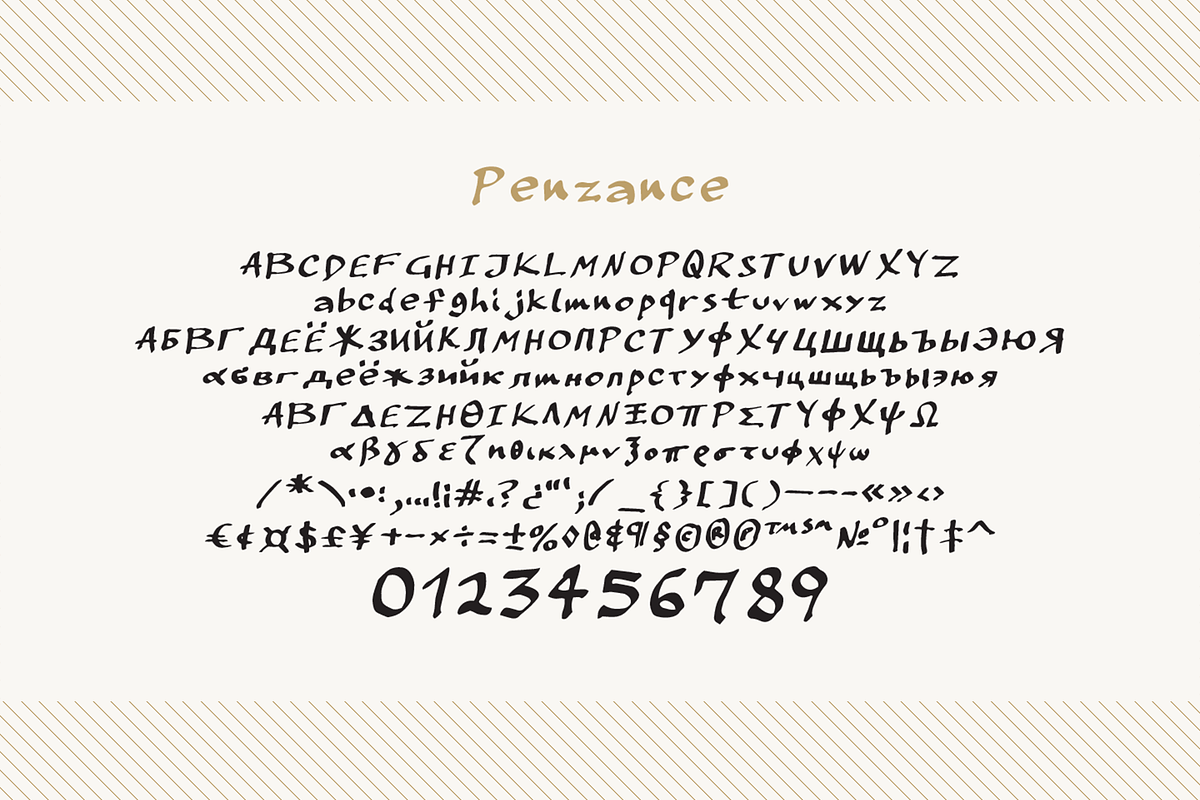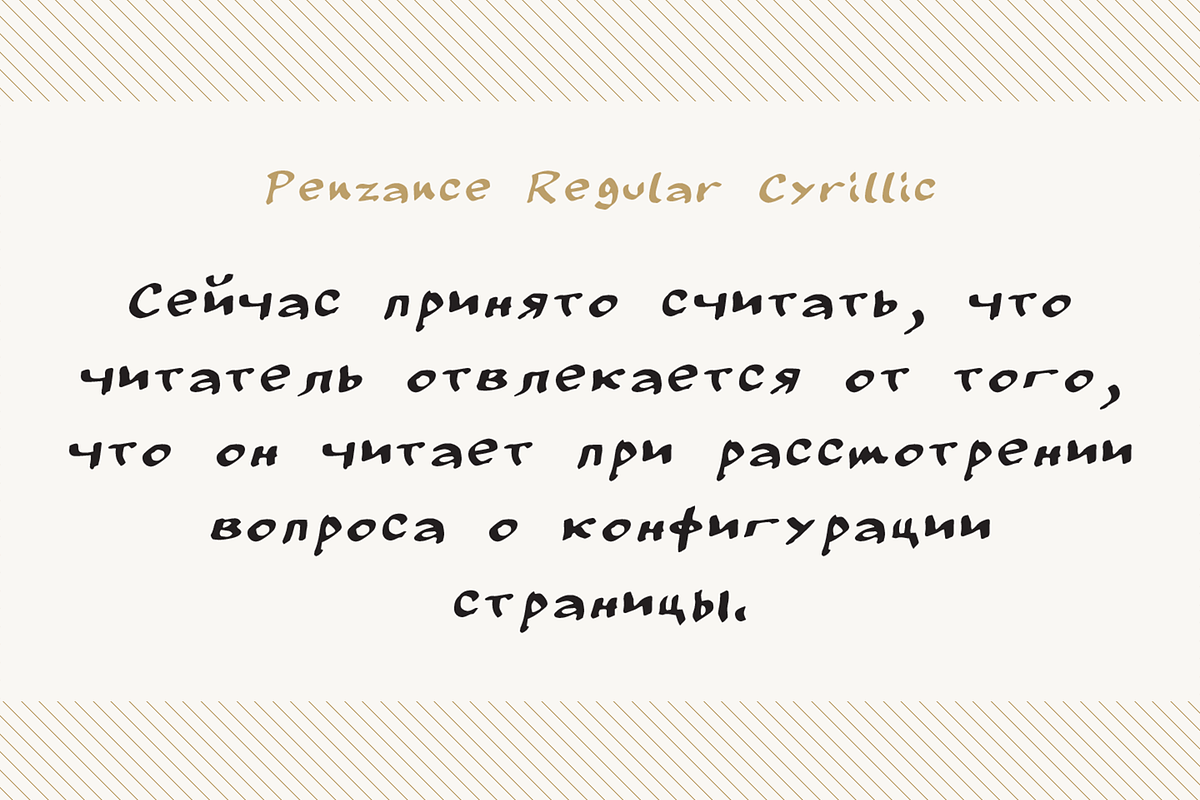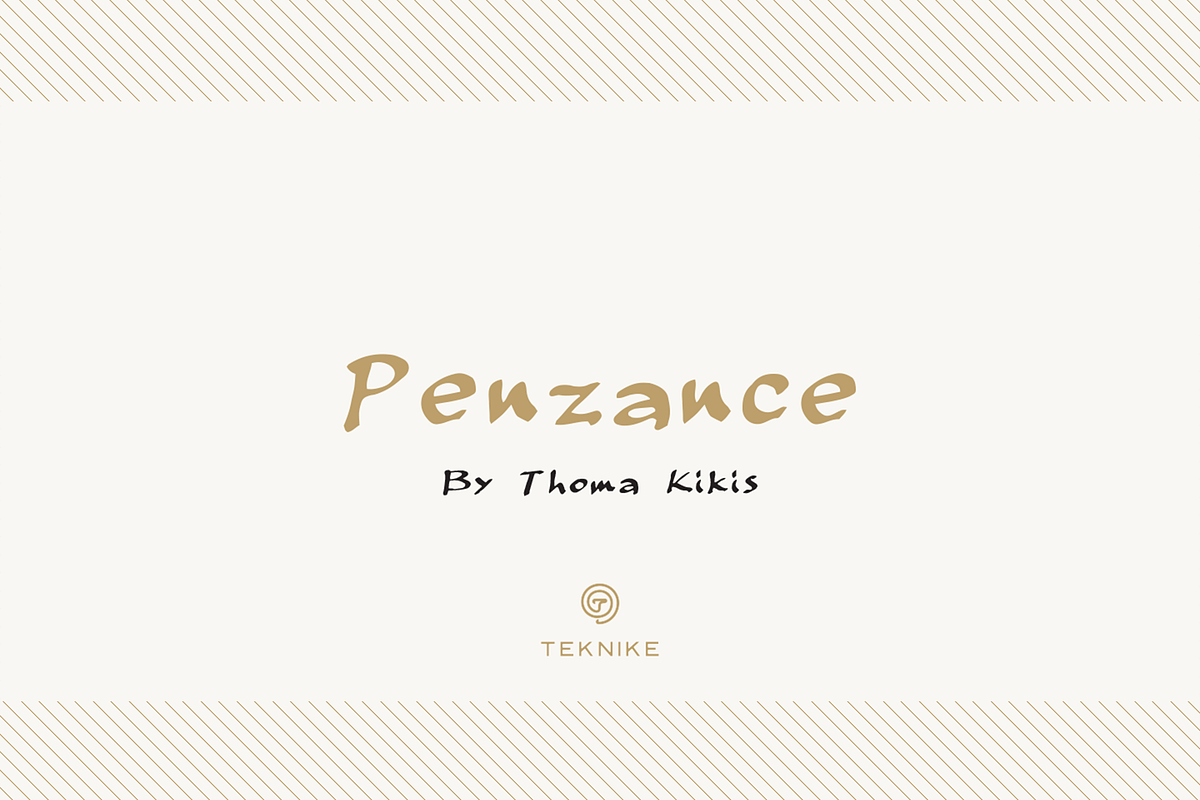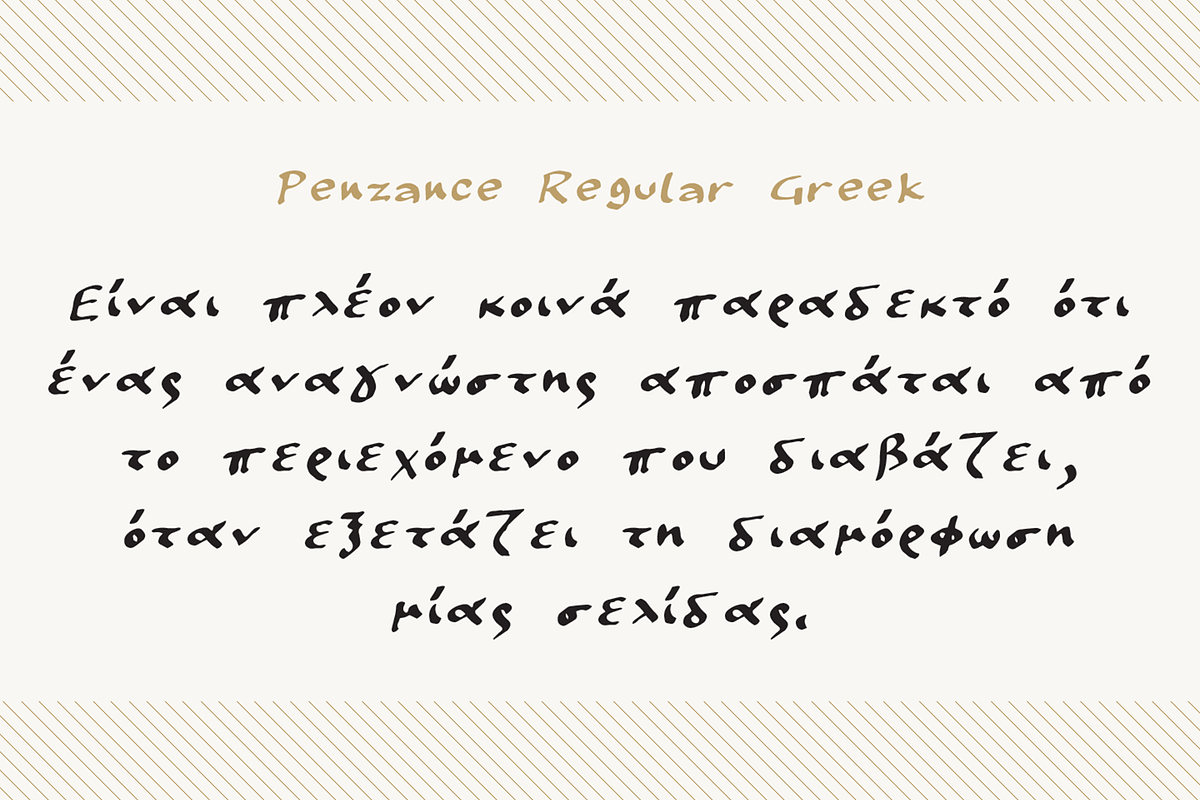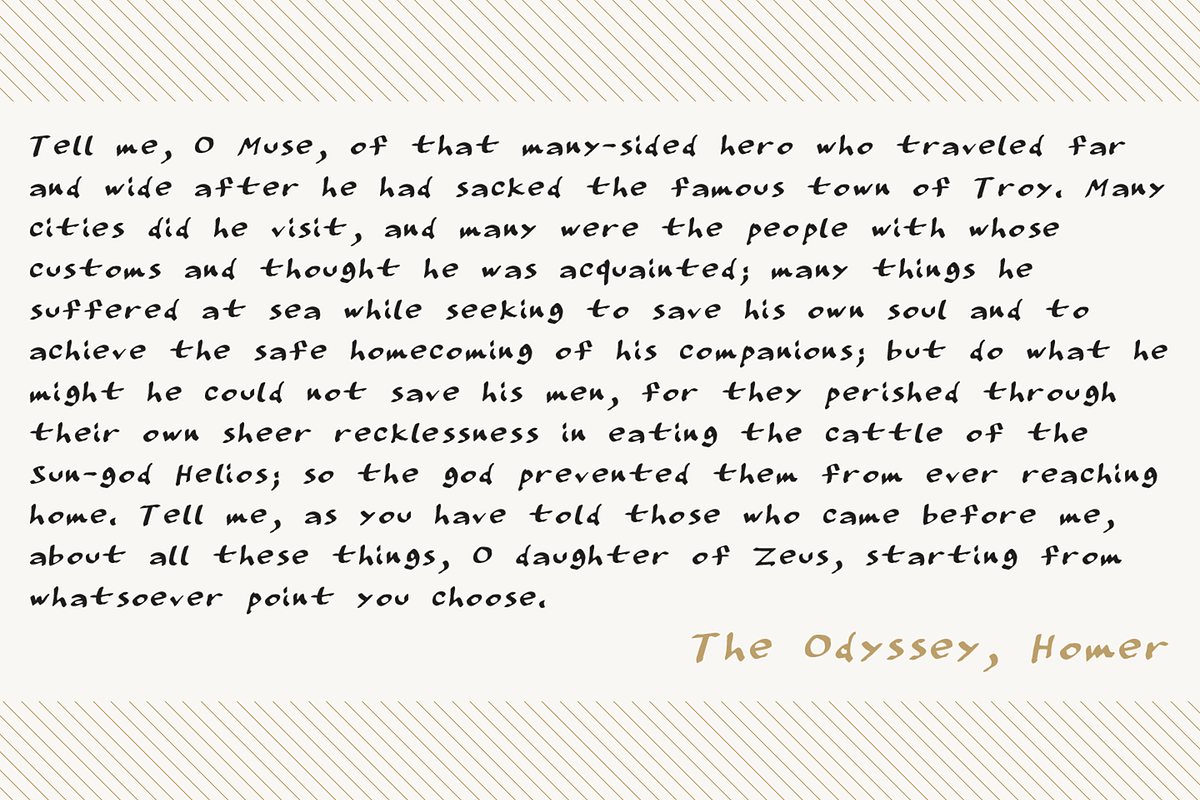
Penzance
Penzance is a display monospace handwriting font. The typeface is a distinct hand drawn font using a fountain pen quill ink style. The Penzance name means "holy headland" in the Cornish language and is derived from the town on the English coast of Cornwall. Penzance is great for display work, invitations, writing, books, posters and headings.
Penzance is designed by Thoma Kikis and is currently available with Latin, Cyrillic and Greek character sets.